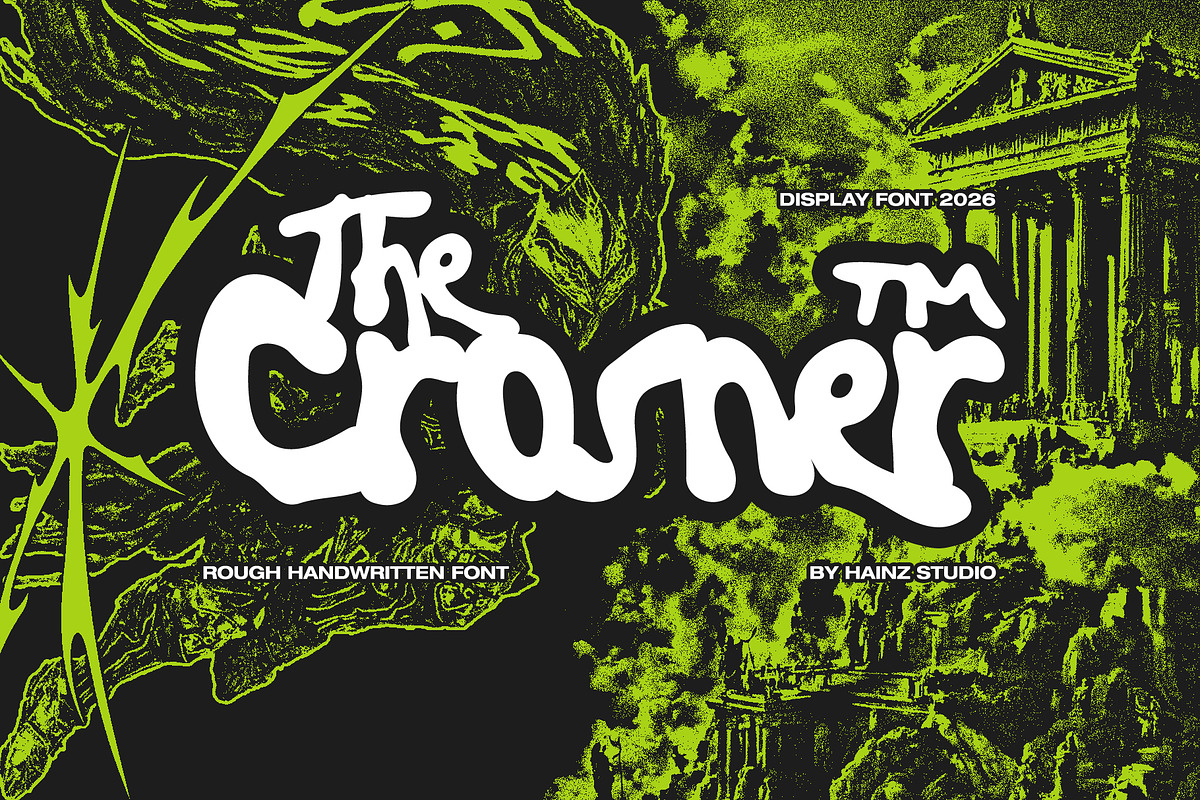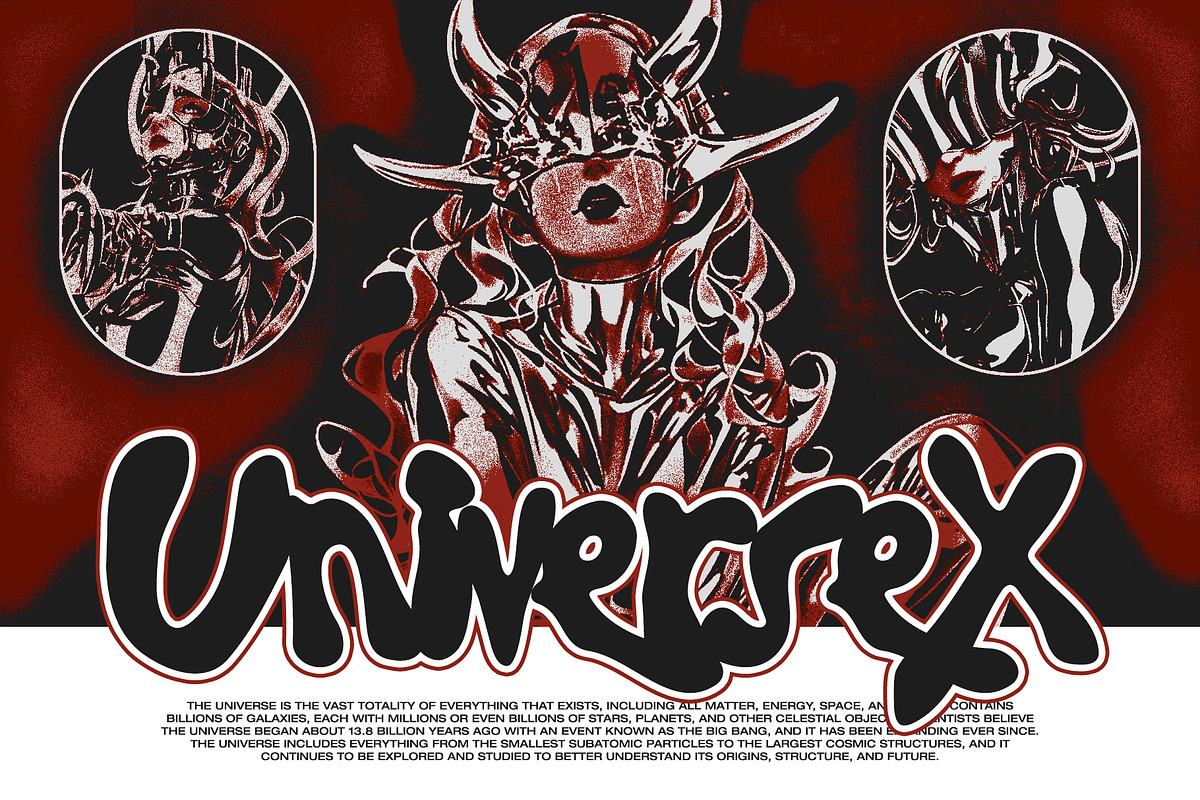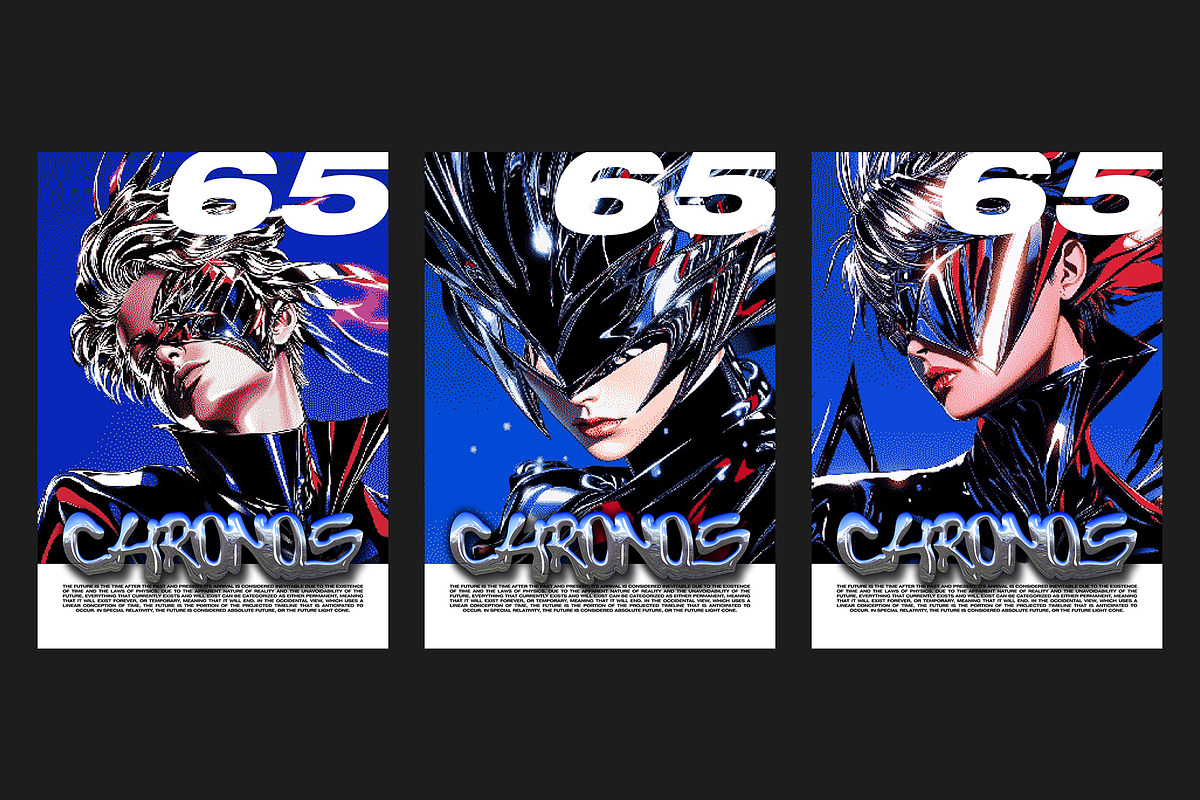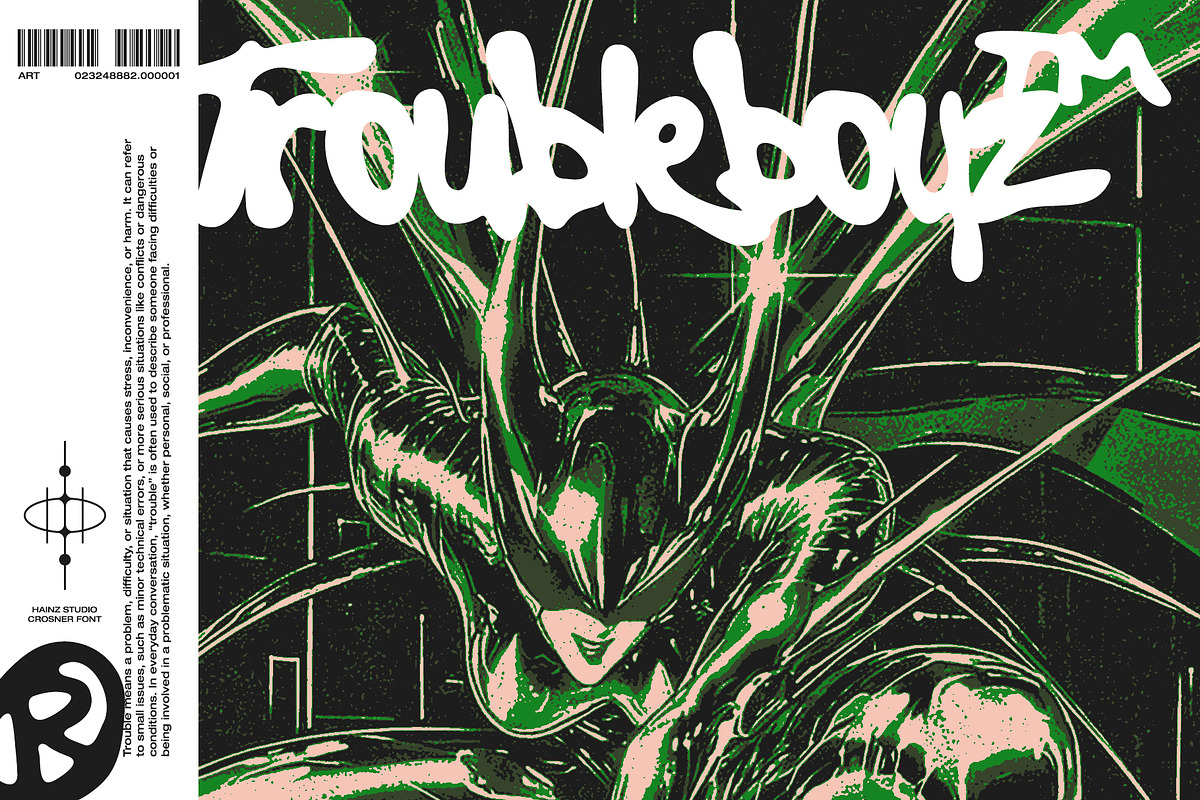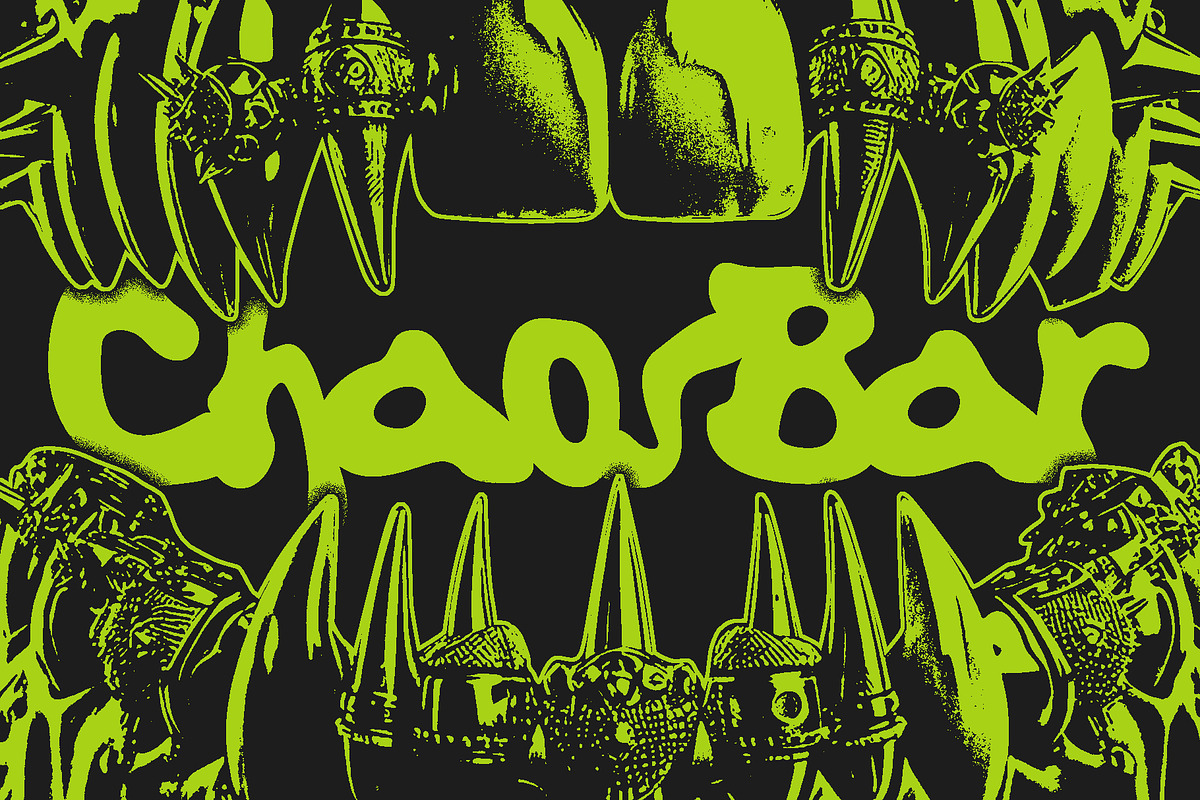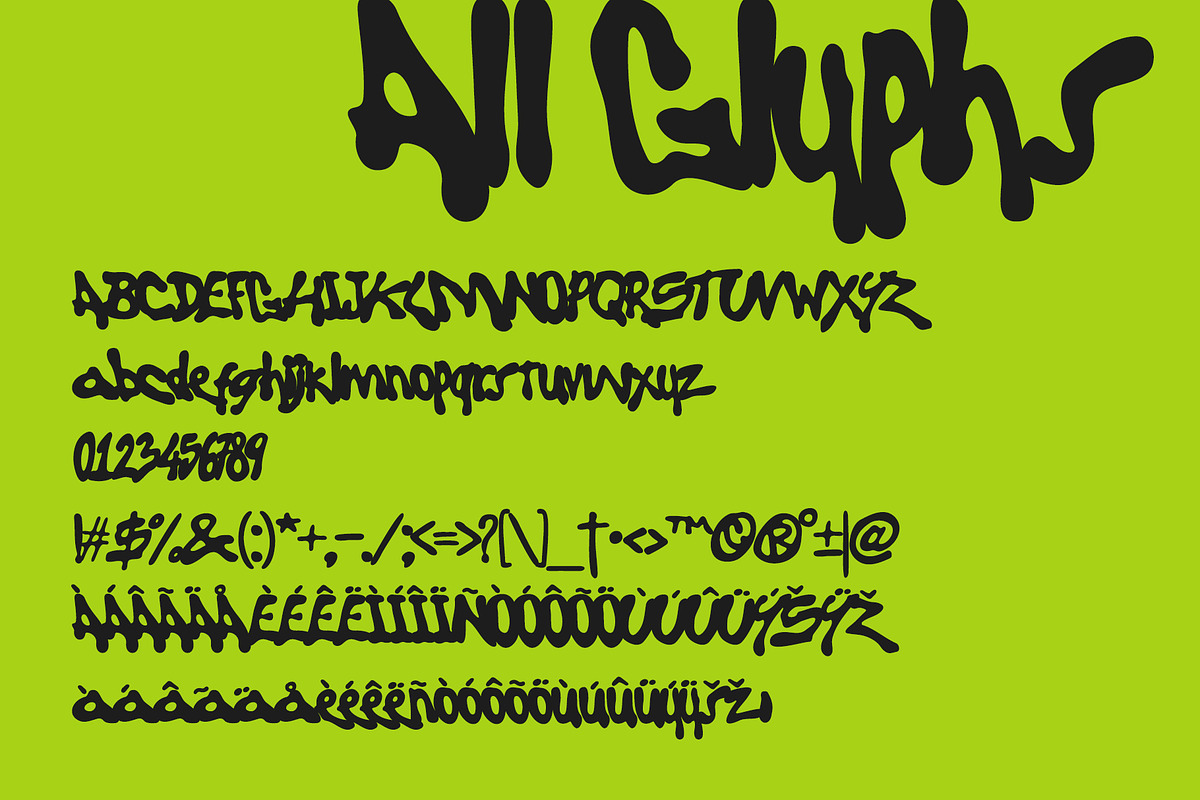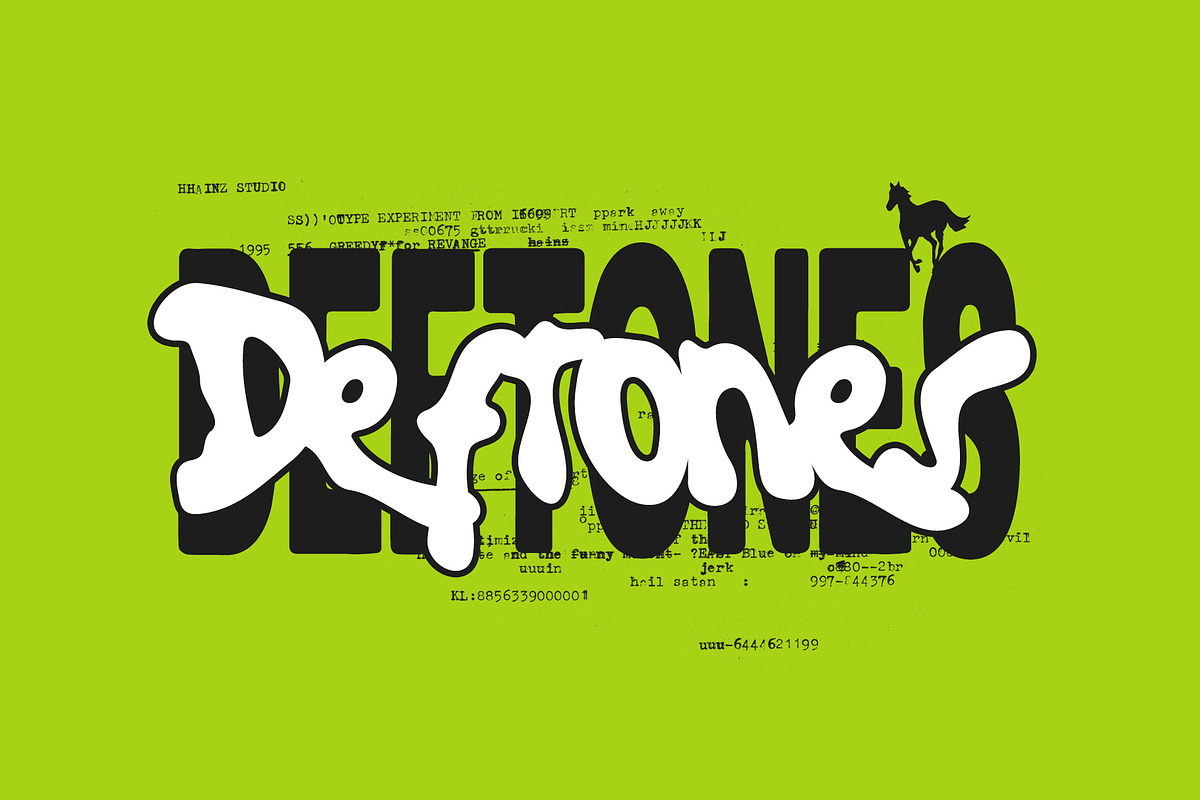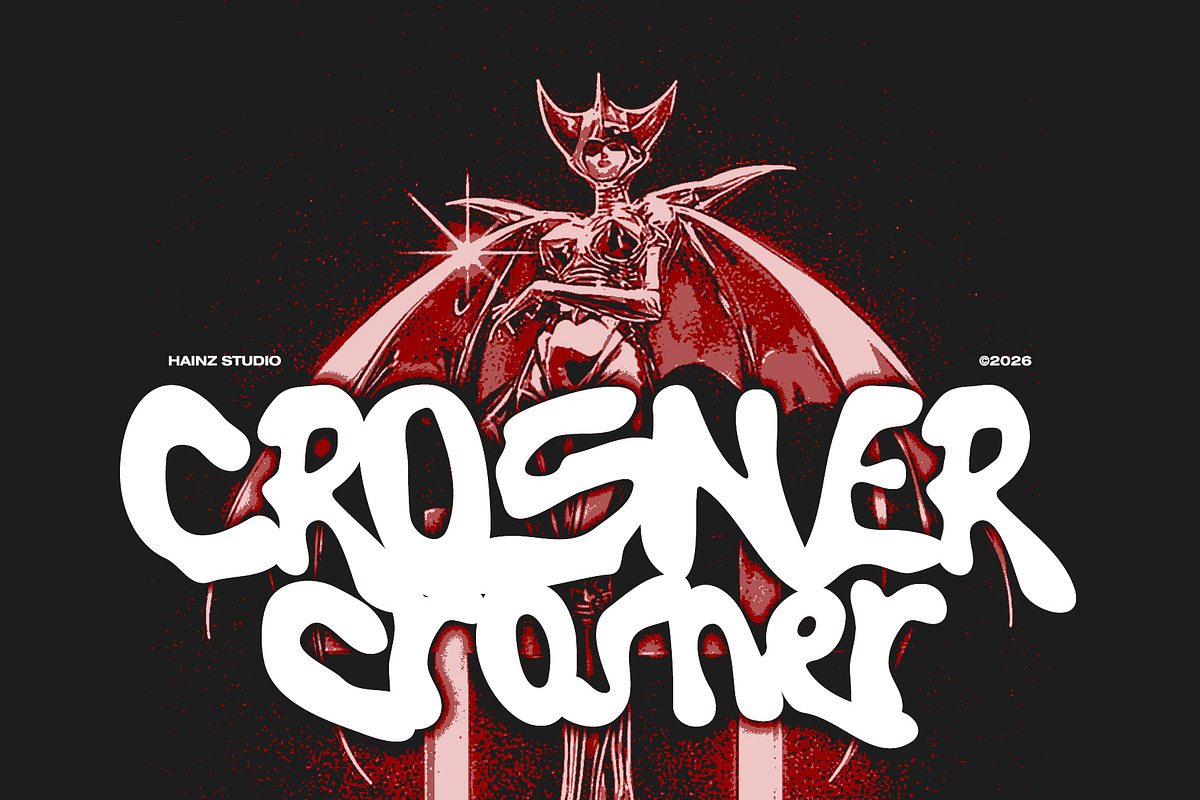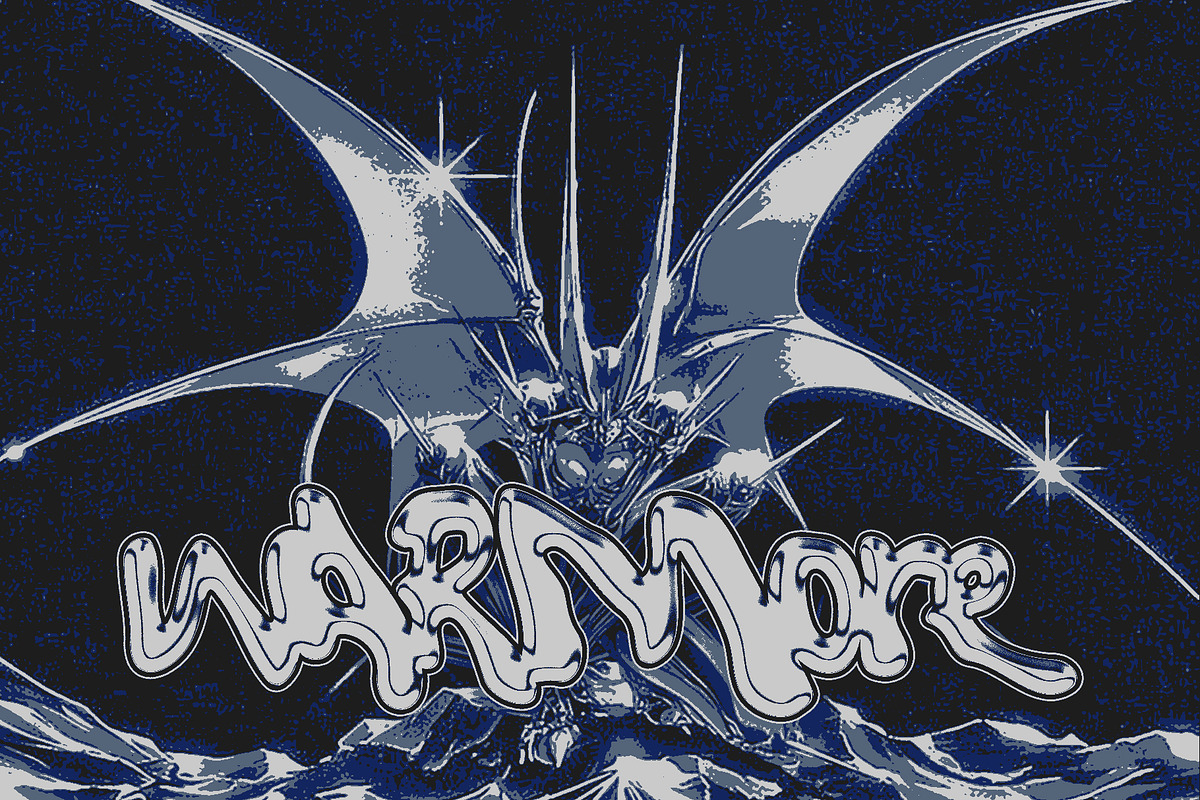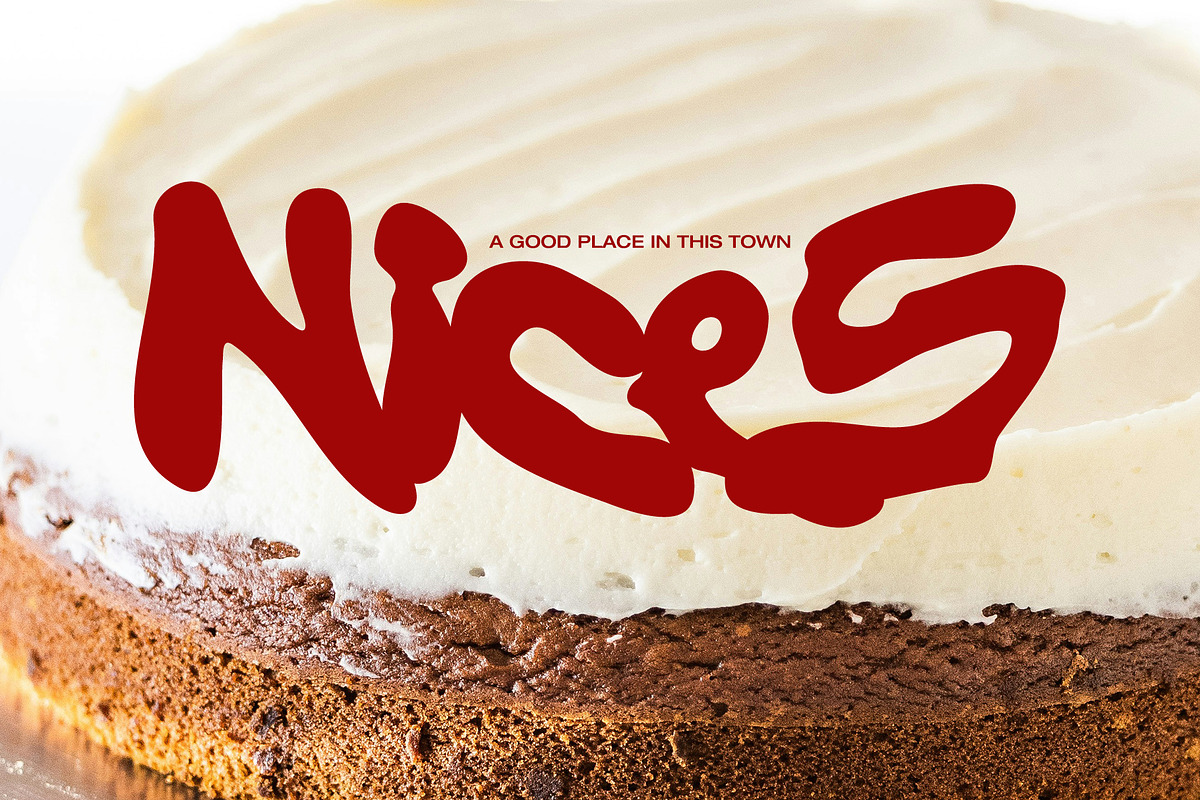
Crosner – Rough Handwritten Font
CROSNER – Rough Handwritten Font
Crosner is a raw and bold brush graffiti font inspired by street art, hand-drawn lettering, and underground urban culture. Built with rough strokes and expressive shapes, Crosner delivers an energetic, rebellious feel that instantly grabs attention. This typeface is designed for impactful display use, making it perfect for streetwear branding, music posters, album covers, skate graphics, editorial headlines, zines, and edgy social media visuals. Its imperfect and organic letterforms bring movement and authenticity, giving your designs a strong handcrafted personality.
Crosner includes uppercase and lowercase letters, numbers, punctuation, symbols, and extended Latin characters, making it suitable for both local and international projects. Whether you’re creating bold typography or experimental layouts, Crosner adds attitude, texture, and visual power to your work.
- Streetwear & urban branding
- Graffiti & street art designs
- Music posters & album artwork
- Skate, hip-hop, and underground culture
- Posters, headlines, and social media graphics